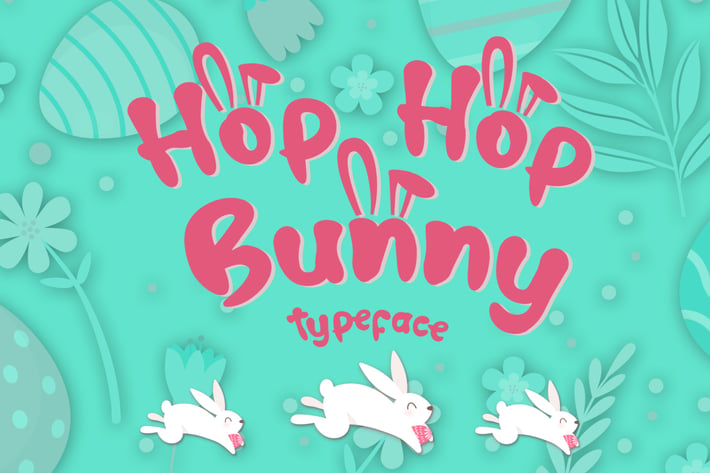
Hop Hop Bunny - Easter Font
Hop Hop Bunny! The cute typeface with extra bunny ears~
Suitable for t-shirt design, scrapbook, posters, gift, souvenirs, and many more.
Comes with 2 options font : with or without ears. Please choose the Hop Hop Bunny Alternates for access the letters with bunny's ear.